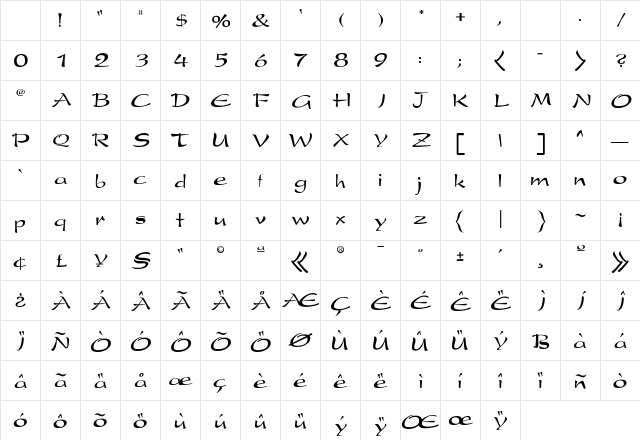
Kudasai Regular Free Font
Kudasai Regular
Kudasai Family
Kudasai Regular
Design Context for Kudasai
Kudasai is a composed and adaptable typeface that performs quietly and consistently across a wide range of design contexts.
Pro Tip: Use Kudasai in both headline and body roles to test its range before committing to a single application.